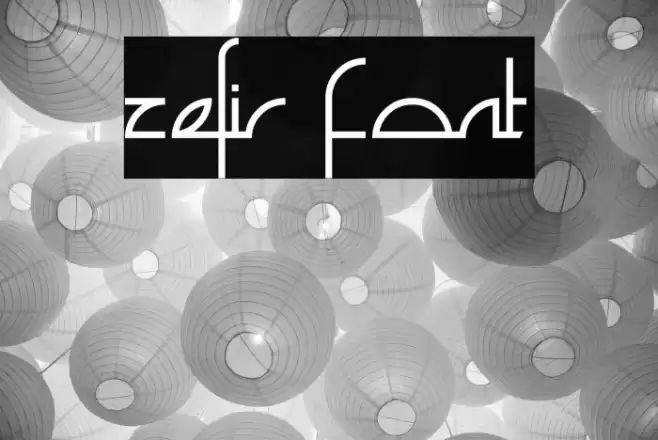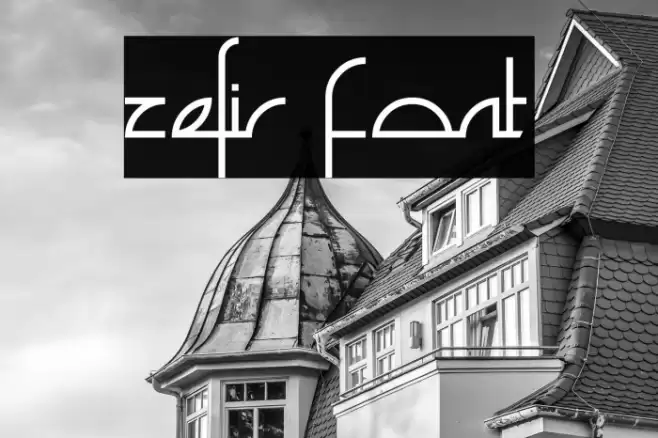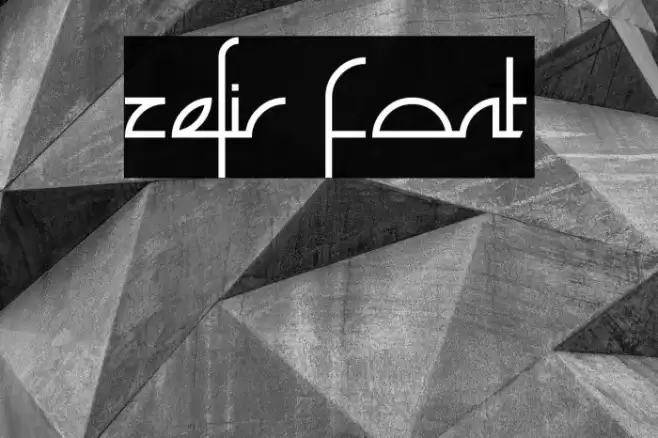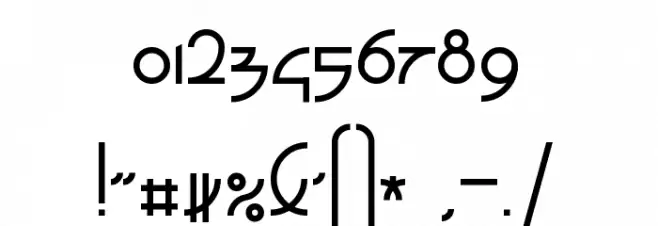
Zefir Font
Zefir Description
This font features a unique, futuristic design with a blend of geometric and organic shapes. The characters are constructed with clean, sharp lines and curves, creating a sense of movement and fluidity. The uppercase and lowercase letters share a consistent style, with some characters featuring distinctive loops and extensions that add to the font's dynamic appearance. The numerals are equally stylized, maintaining the overall aesthetic. Special characters are designed to complement the alphabet, with a modern twist that enhances the font's versatility. This font is ideal for projects that require a contemporary and innovative look.
A futuristic and dynamic font with geometric and organic elements from Regular fonts.
- Proposed Projects: Ideal for tech branding, sci-fi posters, modern art projects, and innovative product packaging.